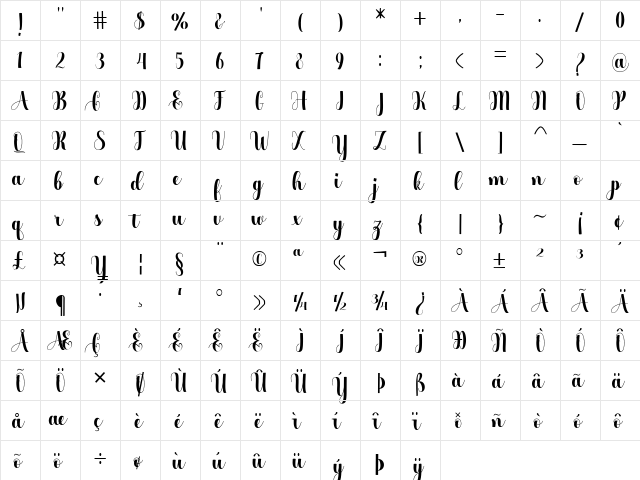
Chandele Regular
Design Context for Chandele Typeface
Chandele brings a calligraphic fluidity to the page — its connecting strokes and expressive curves give it an unmistakably human quality.
Font Pairing: Combine Chandele with a simple geometric sans for maximum contrast — the tension between flowing curves and clean structure is a classic typographic pairing.
Pro Tip: Pair Chandele with a clean sans-serif for supporting text. The contrast between fluid script and geometric structure creates an elegant typographic hierarchy.